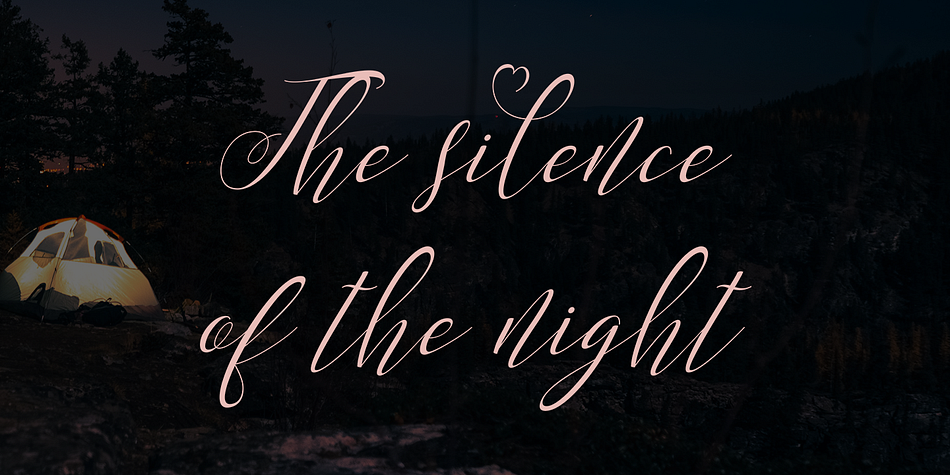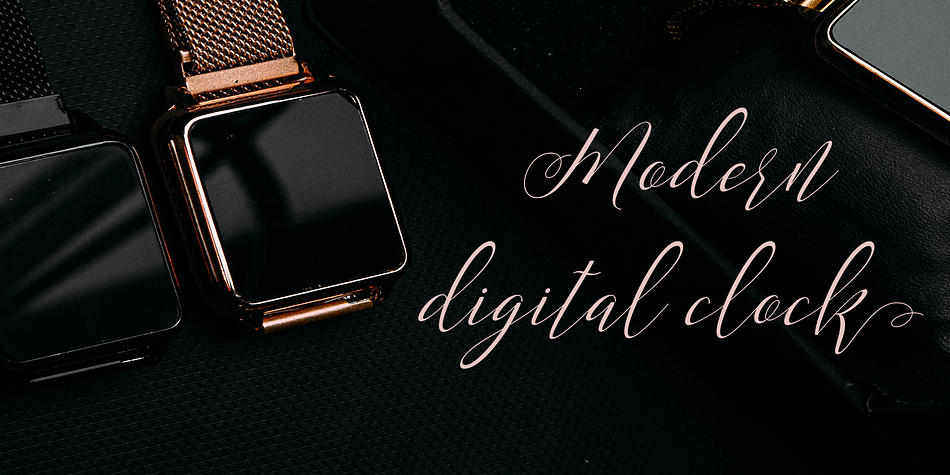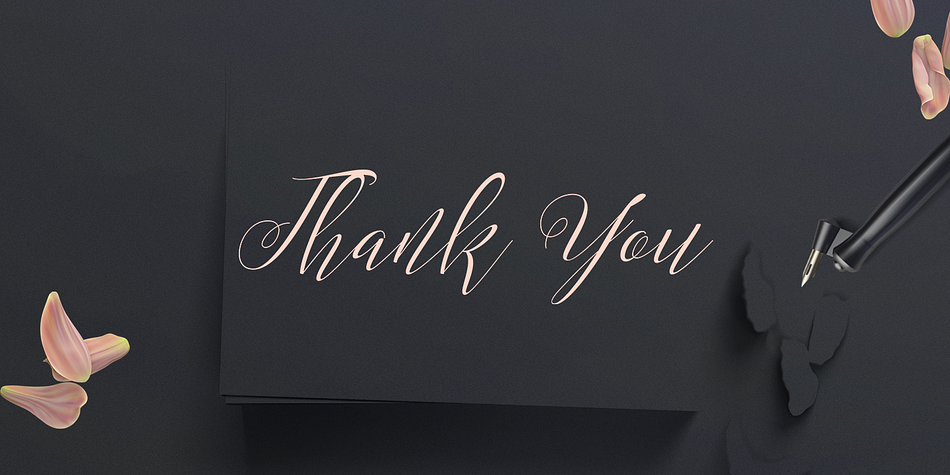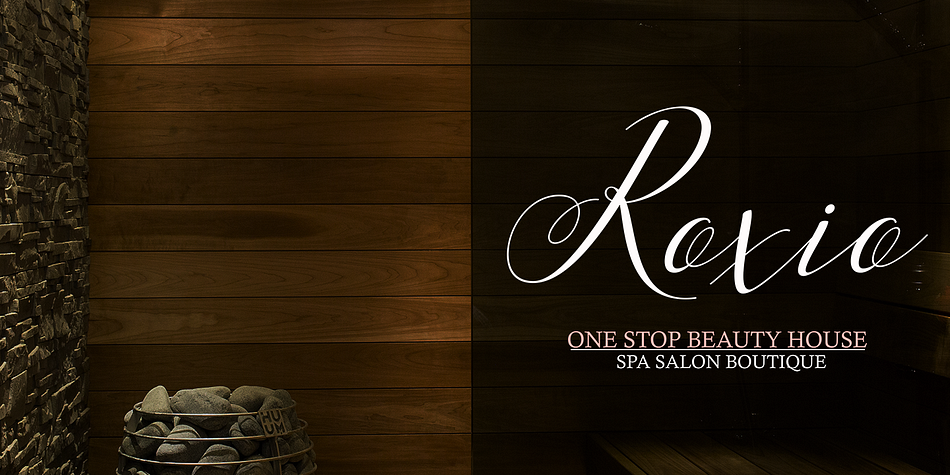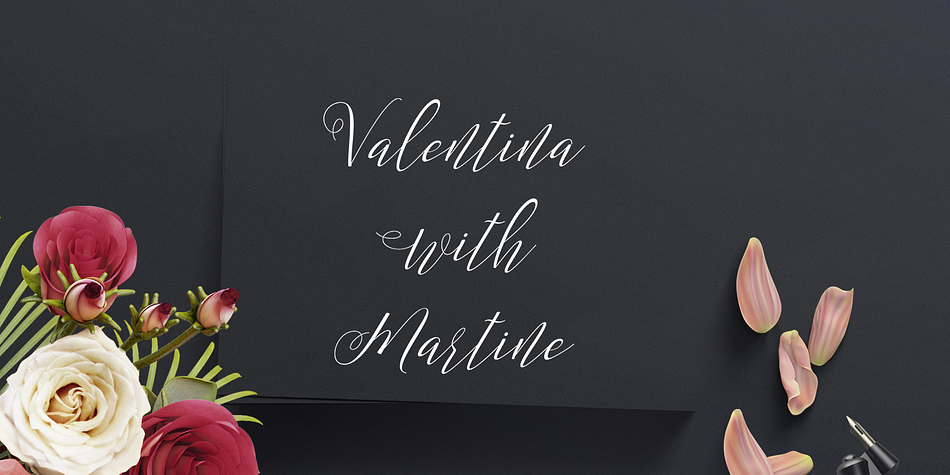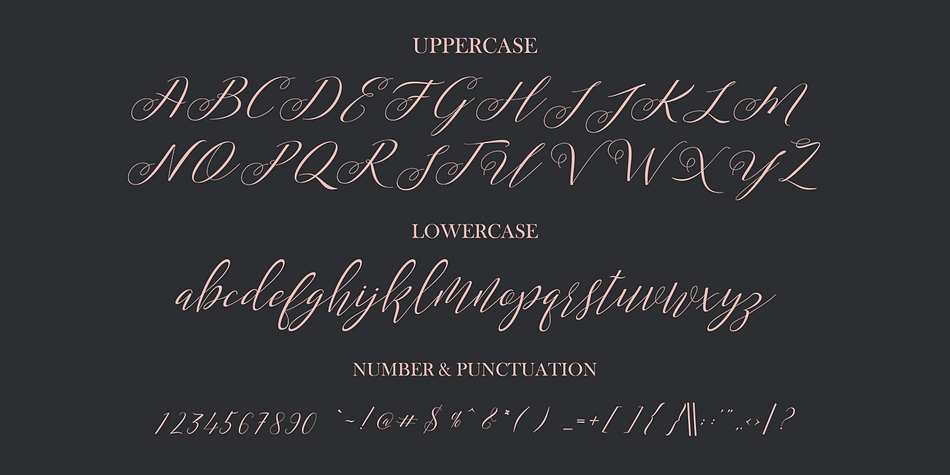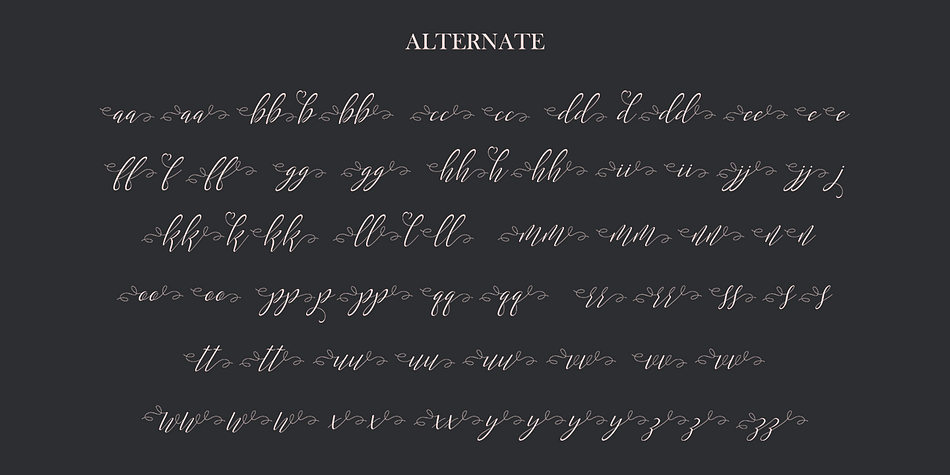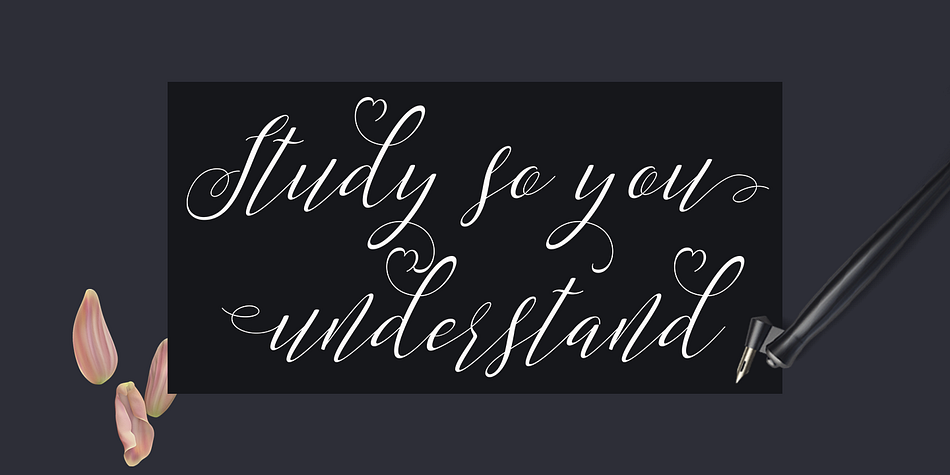
Mordane
Mordane is a modern calligraphy font family published by Gatype.
Mordane is a modern script calligraphy, dynamic and pretty with swashes. Can used for various purposes. such as the title, signature, logo, wedding invitations, letterhead, signage, labels, newsletters, posters, badges, etc.
Mordane features Open type feature, including initial and terminal letters,ligatures and International support for most Western Languages is included.